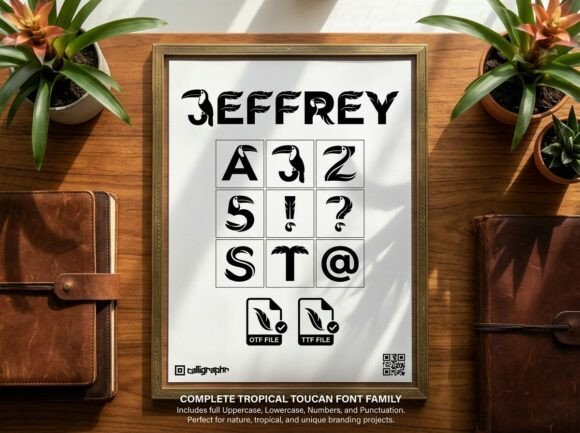
Introduction to Jeffrey Font
Have you ever been brainstorming a design concept and suddenly, a flash of inspiration strikes? For designers, those moments are the best – they can turn a dull project into a vibrant, creative masterpiece. It was one of those moments when the idea for Jeffrey Font was born, a bold and modern display font inspired by the iconic toucan. The result is a high-quality design resource that’s perfect for any creative project, from travel agency branding to tropical juice packaging.
Jeffrey Font is more than just a unique typeface – it’s a statement piece that brings a touch of the exotic rainforest to any design. With its bold, clean letterforms and iconic bird beaks and feathered wings, this font is sure to turn heads and stand out from the crowd. And the best part? It’s vector-ready and available for a free download, making it a valuable resource for designers of all levels.
Key Features of Jeffrey Font
- High-quality, unique design: Jeffrey Font offers a distinctive and creative touch for any project, making it a valuable resource for designers.
- Perfect for creative projects: Jeffrey Font is ideal for use in creative projects, such as graphic design, digital art, and typography, where a unique and high-quality font is essential.
Honest Review: Jeffrey Font
As a designer, I’m always on the lookout for high-quality design resources that can elevate my creative projects. Recently, I had the chance to try out the Jeffrey Font, and I’m excited to share my thoughts on it.
What works well: ✨ The Jeffrey Font offers a clean and modern aesthetic, perfect for a variety of design applications. The font is highly customizable, allowing me to tweak the size, color, and spacing to suit my needs. Additionally, the font supports a transparent background, making it easy to layer over images or other design elements.
- High-quality design with a modern aesthetic
- Customizable font properties (size, color, spacing)
- Supports transparent background
What doesn’t work well: ⚠️ While the Jeffrey Font is a great addition to my design arsenal, I did experience some issues with font rendering on certain devices. Additionally, the font’s versatility is somewhat limited by its lack of bold or italic variations.
Overall impression: I’m thoroughly impressed with the Jeffrey Font. Its modern aesthetic and high level of customizability make it a valuable resource for designers working on a variety of creative projects. With some minor tweaks, I believe the font could be even more effective.
Tips for Getting the Most Out of Jeffrey Font
Use Jeffrey Font with a transparent background for a more subtle look.
Combine Jeffrey Font with other high-quality design resources for a cohesive design.
Experiment with different font sizes and styles to add visual interest to your design.
Use Jeffrey Font for creative projects such as branding, marketing materials, and social media graphics.
Jeffrey Font is ideal for use in presentations, reports, and documents where a high-quality font is needed.